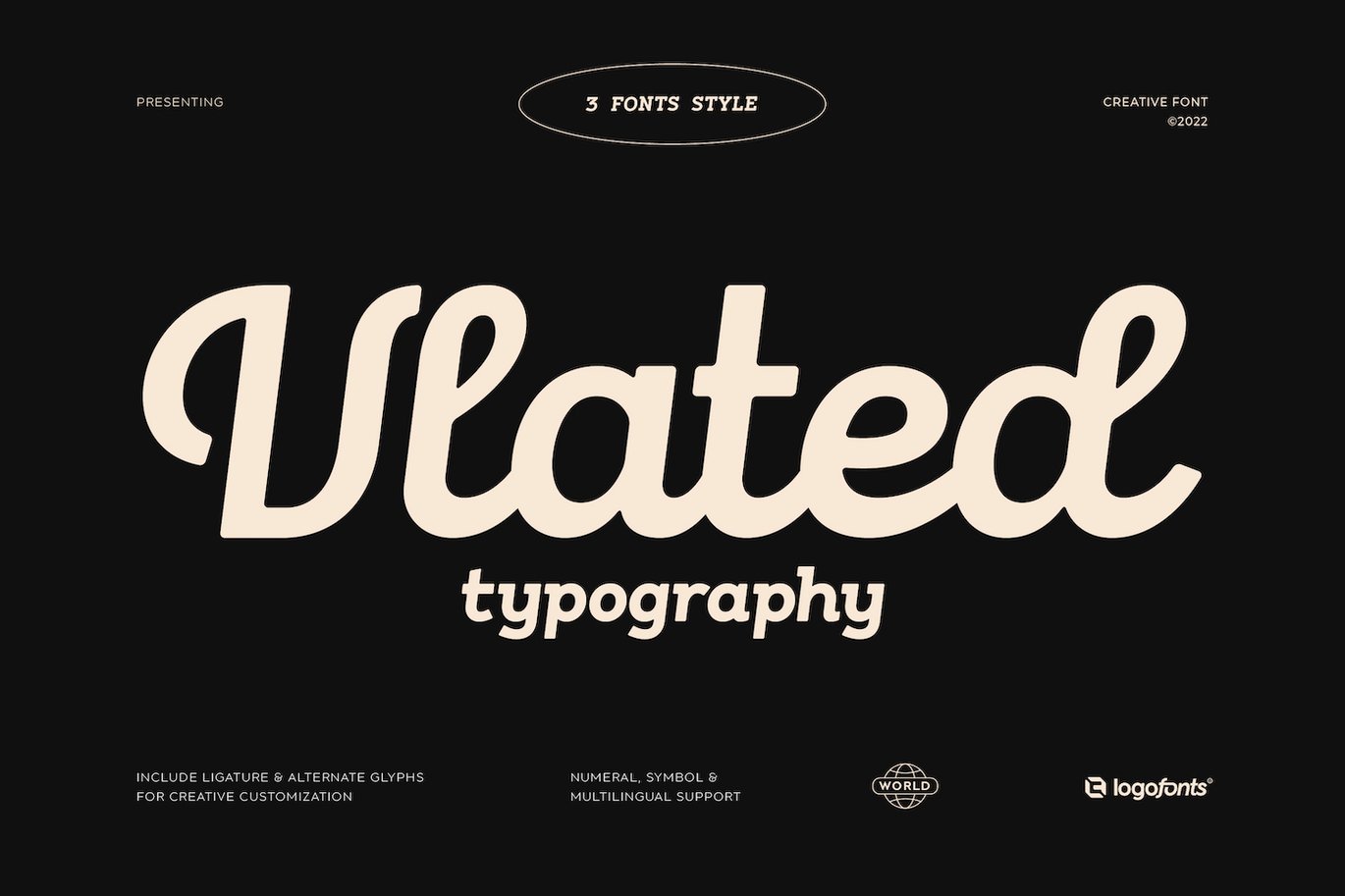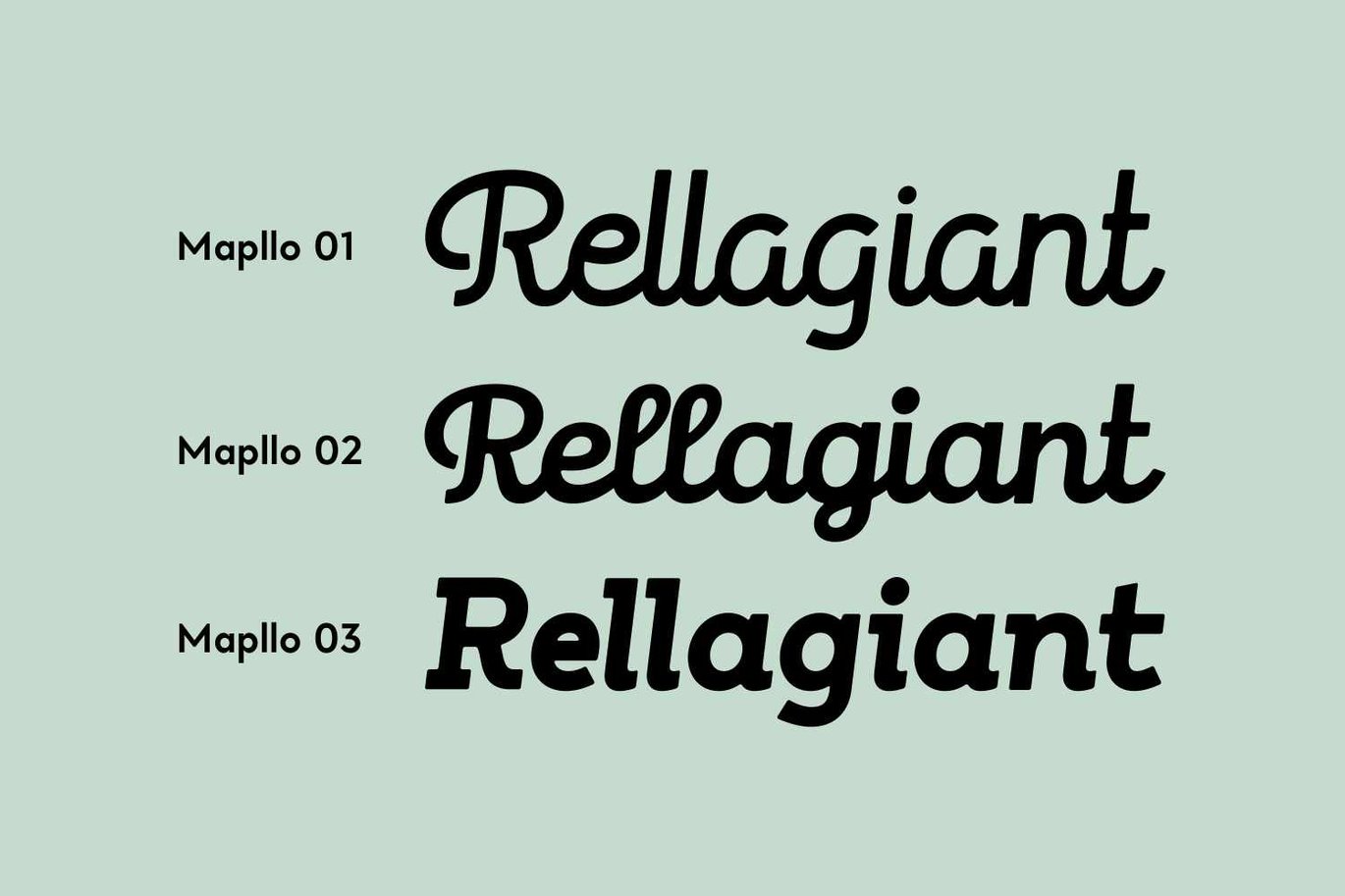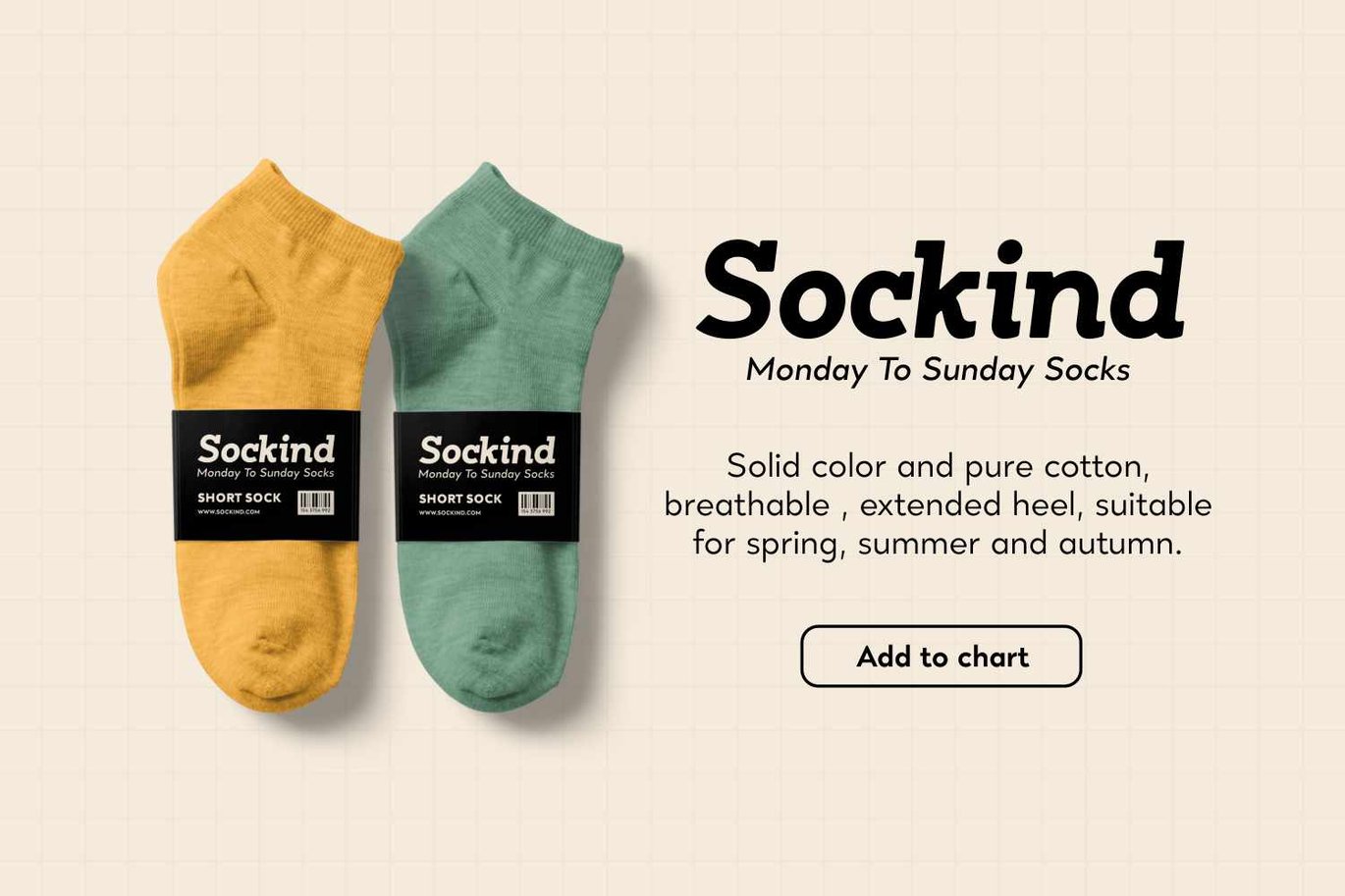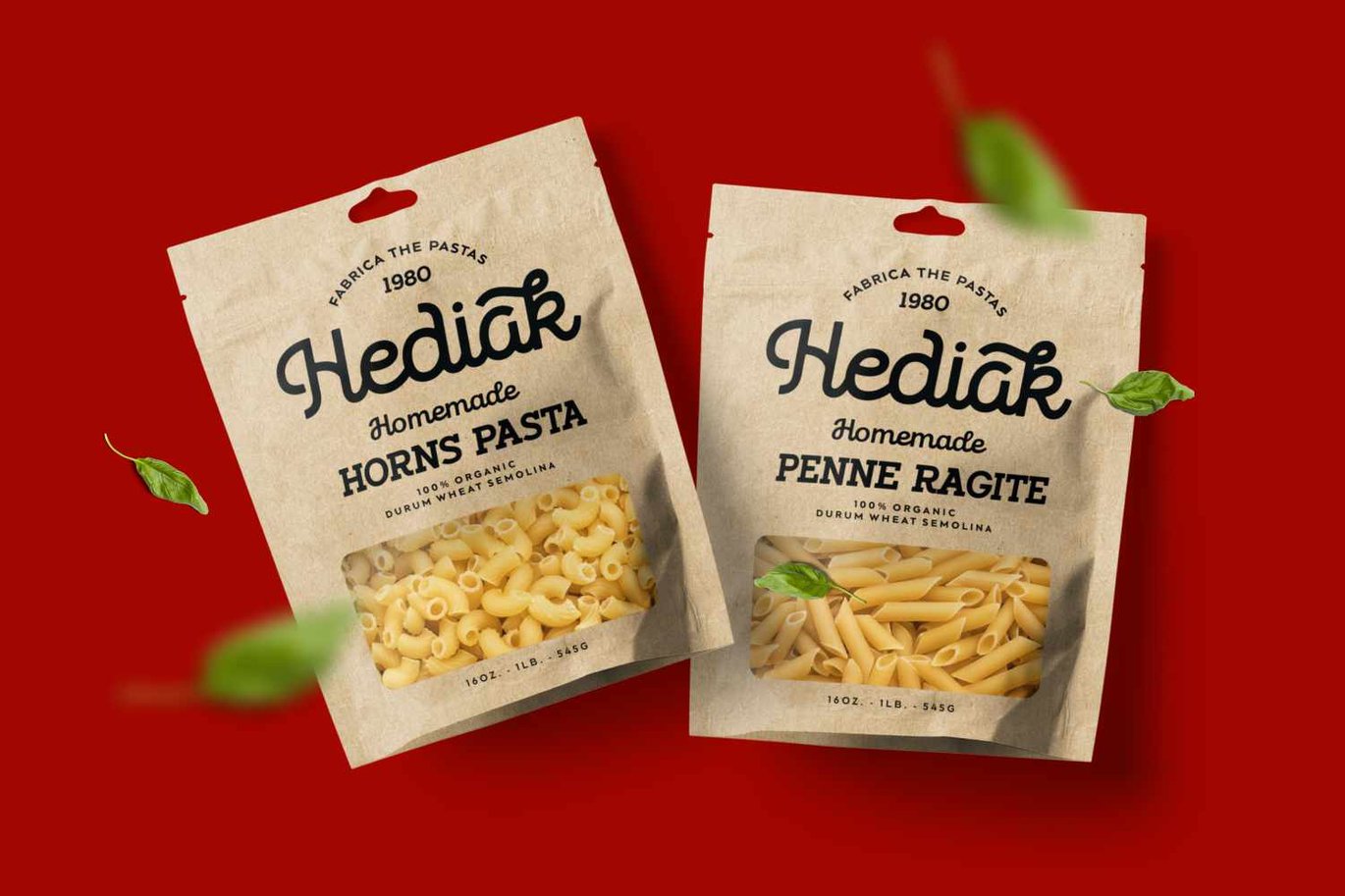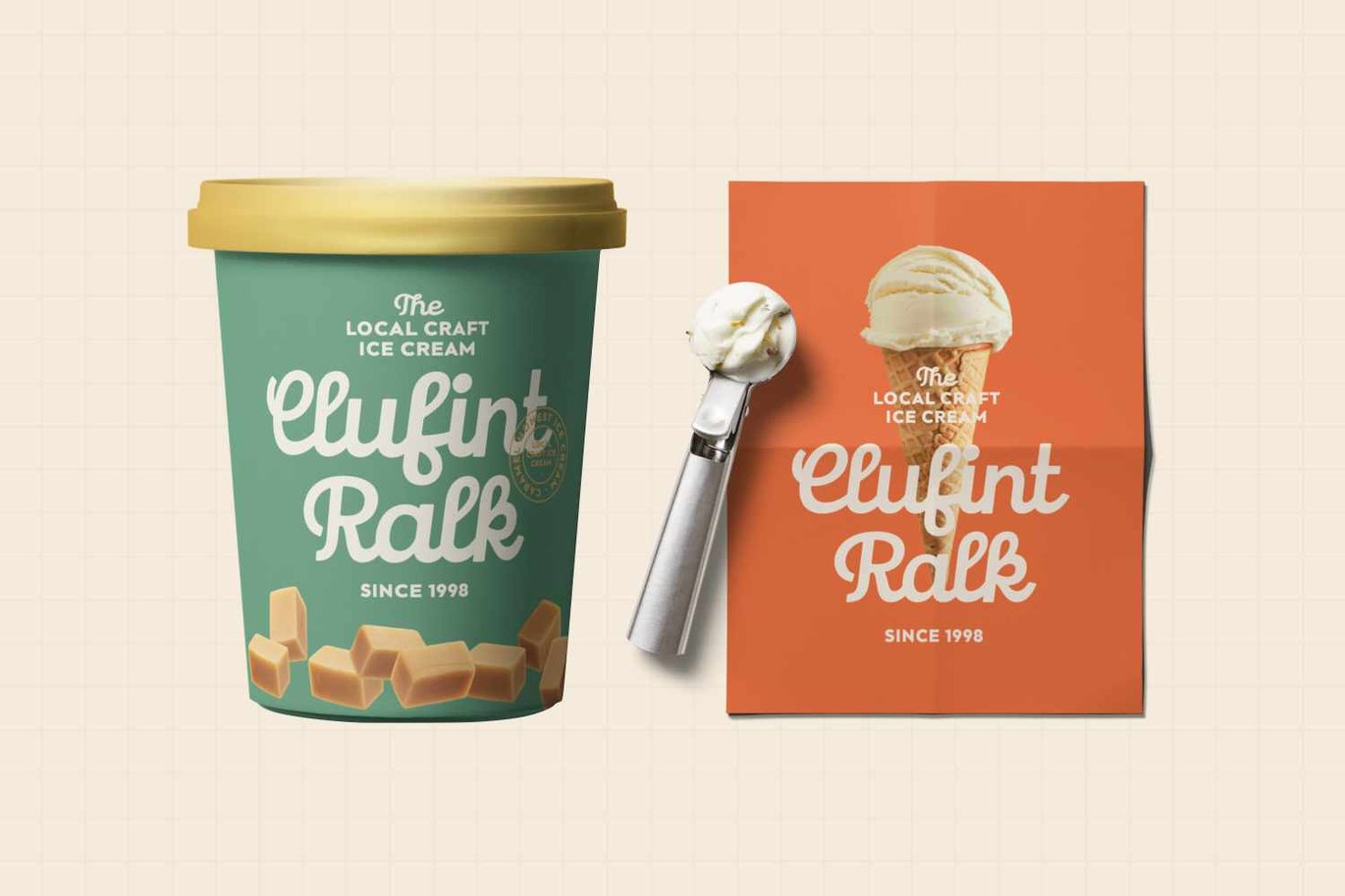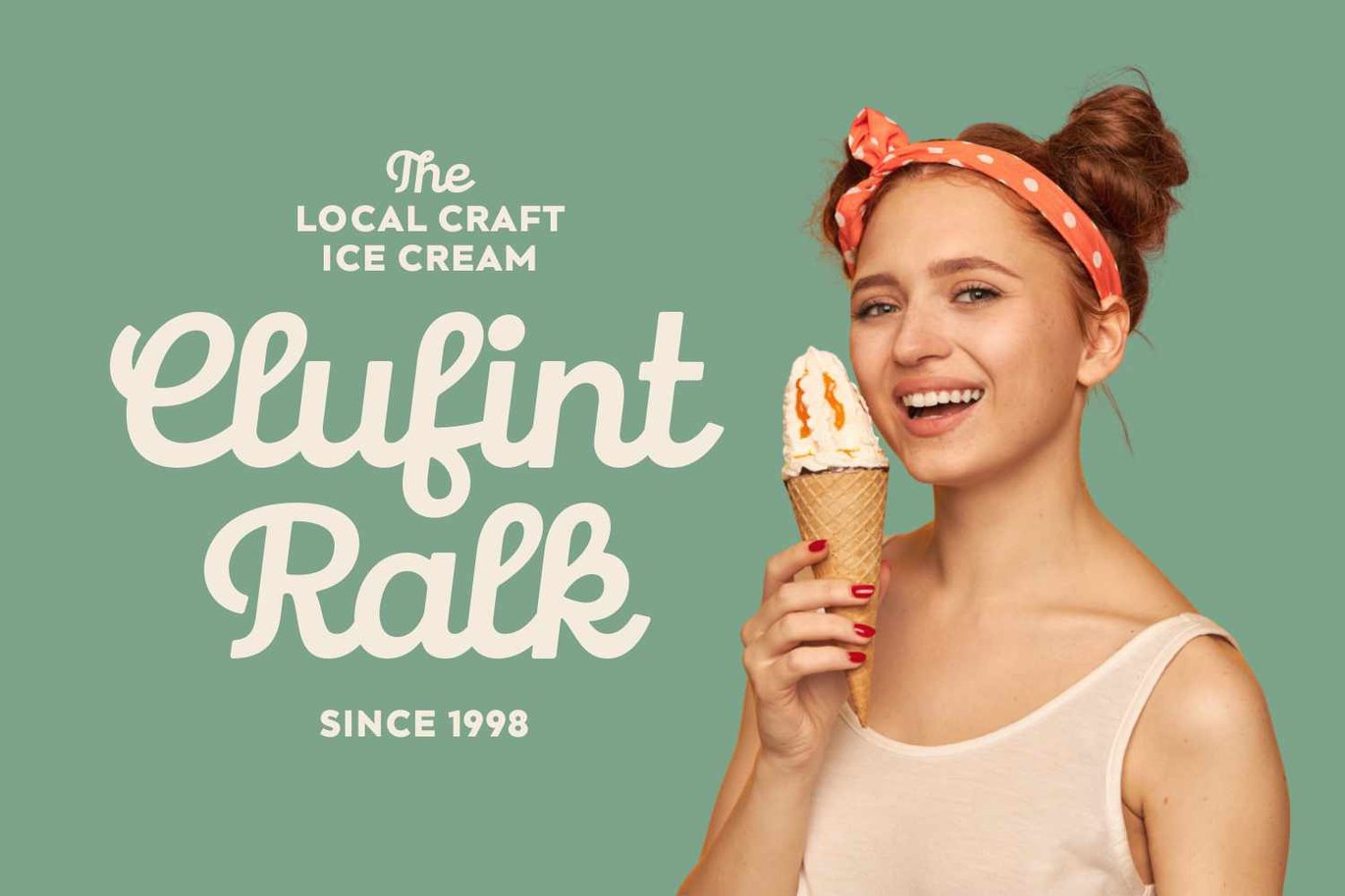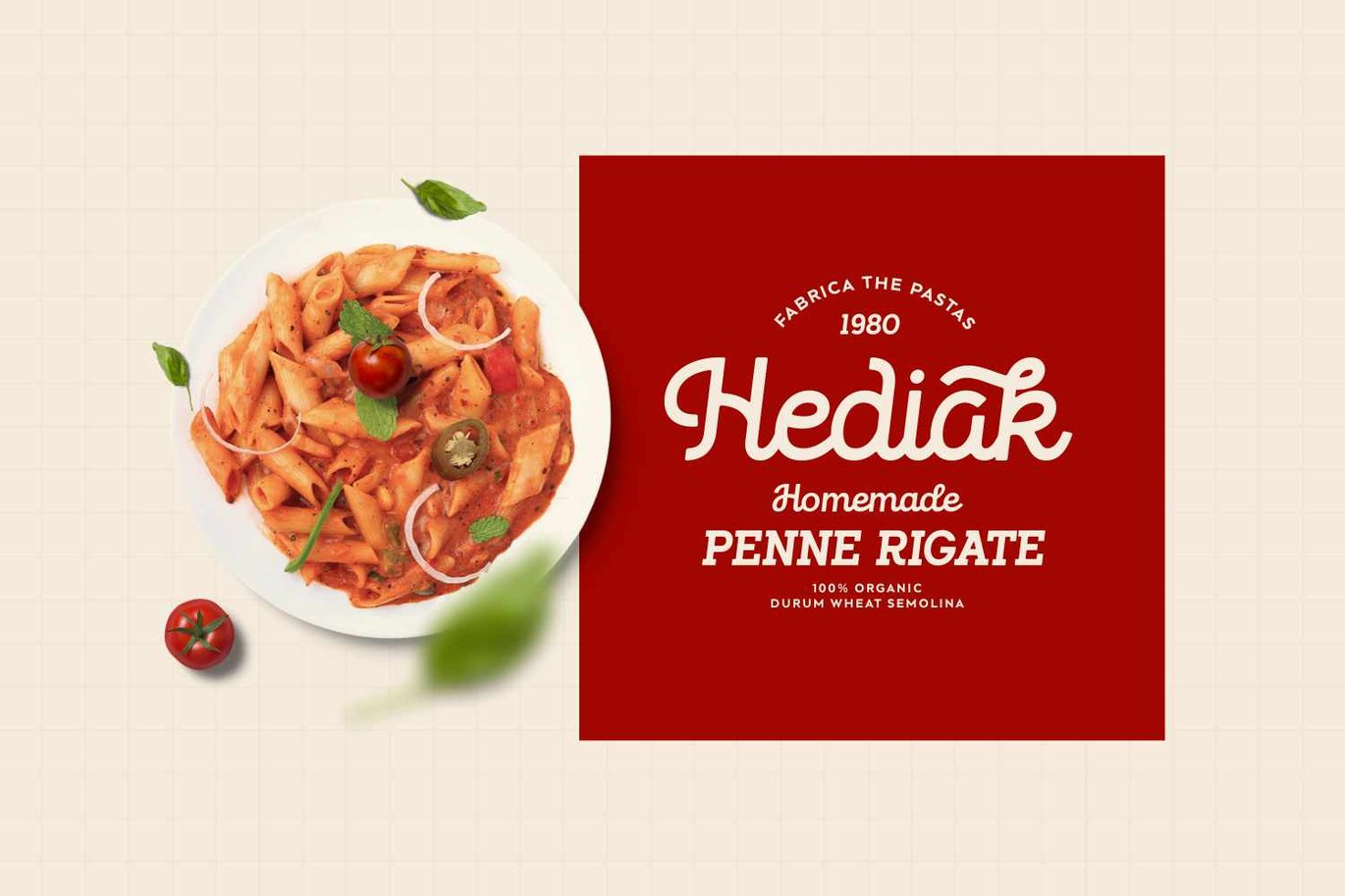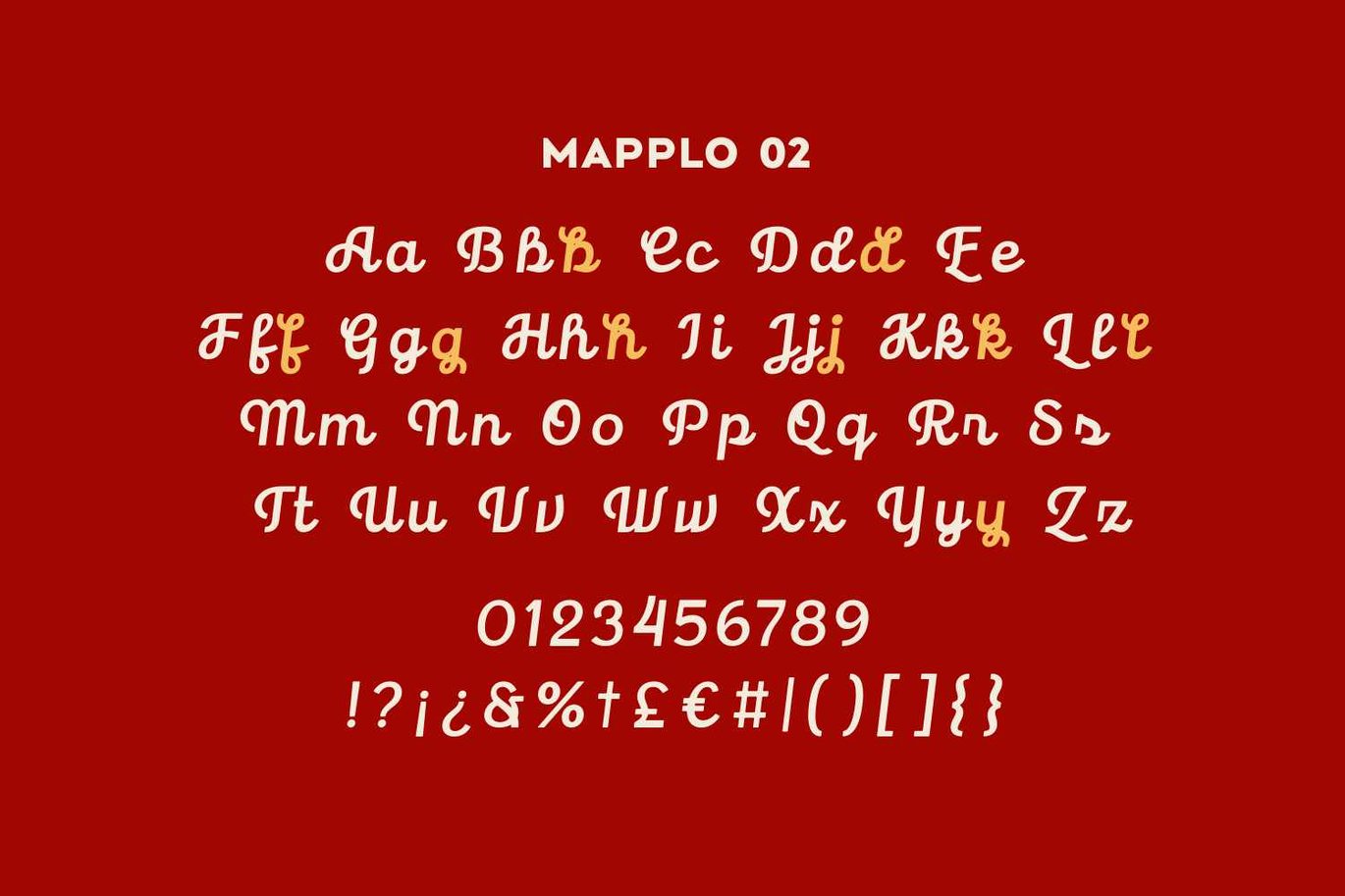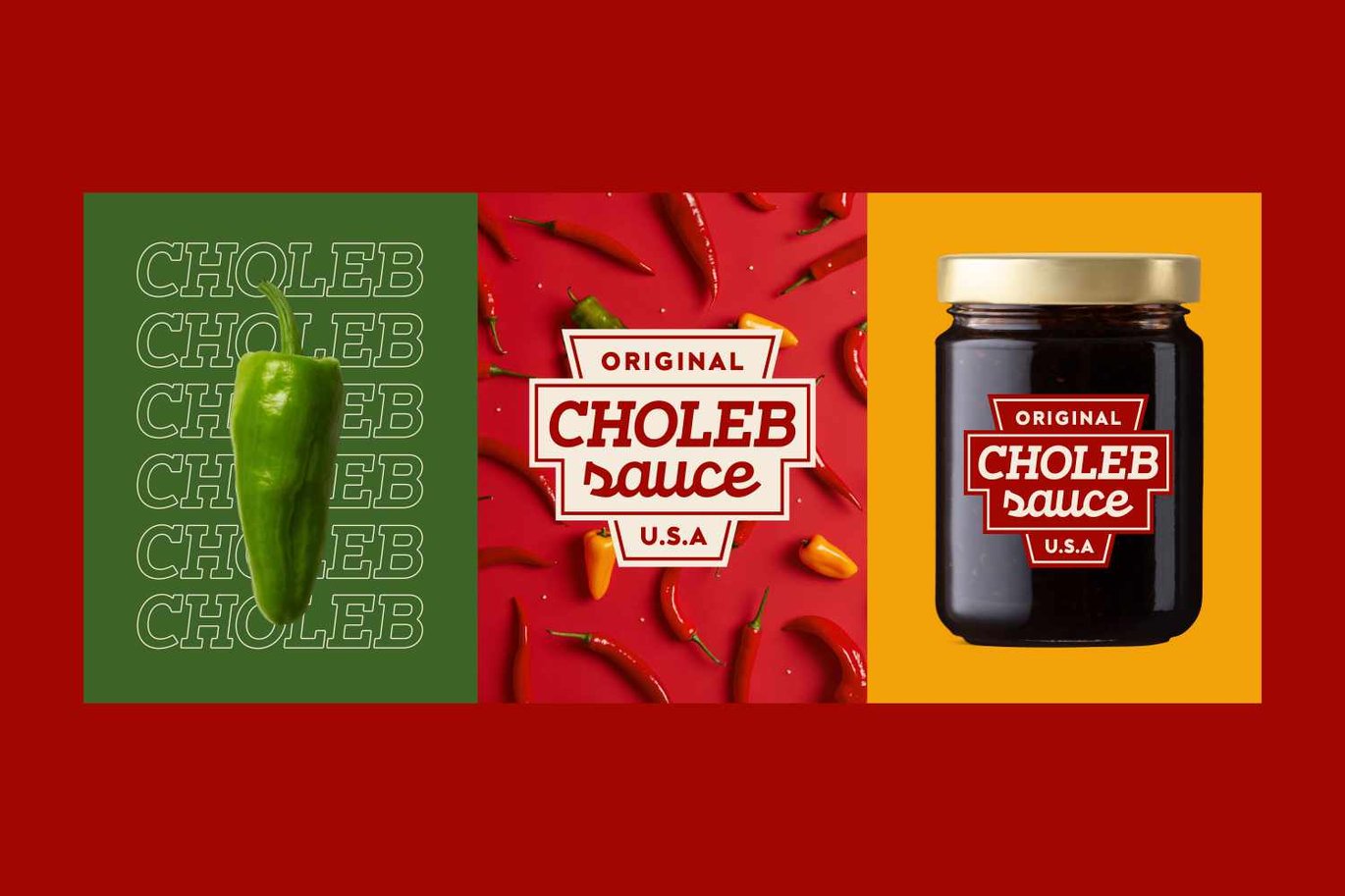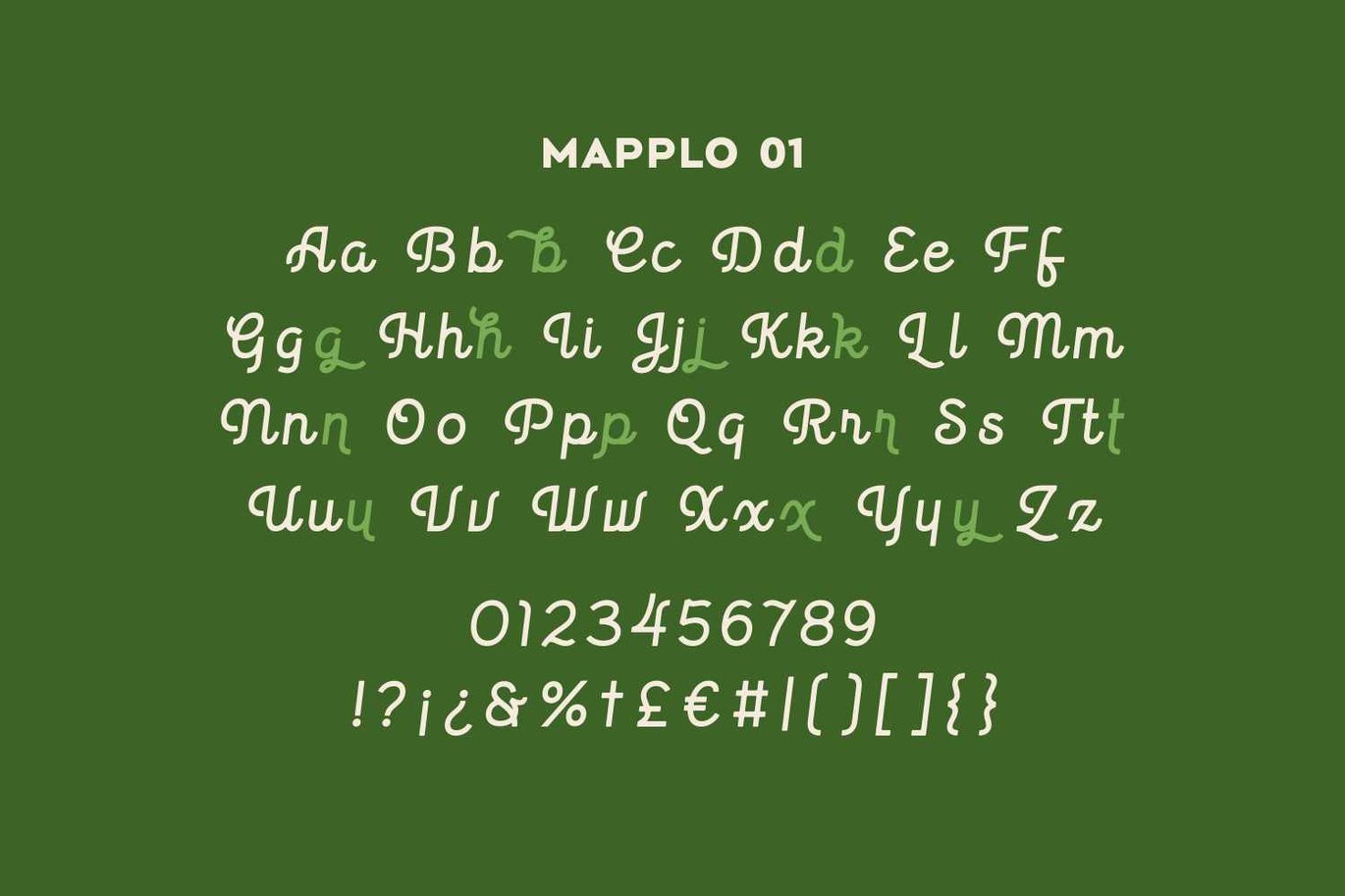
Vlated – Vintage Font
Vlated is Script and Slab Serif fonts Vintage looks and feel inspired by the 1980s lettering design made stronger and bolder for today’s projects that look more vintage. The goal was to take the simple but effective designs from this era. Vlated have 3 fonts, 2 script and 1 slab serif. Vlated fonts are great for product logo, poster, headline, card logo, clothing brand logo, lettering artwork, t-shirt designs, Vintage design, magazine, packaging, stationery and much more. Easily creates your own logo type with fonts. Vlated has an Open Type feature to access a large selection of unique alternative letters and many ligatures to make it easier for you to create.